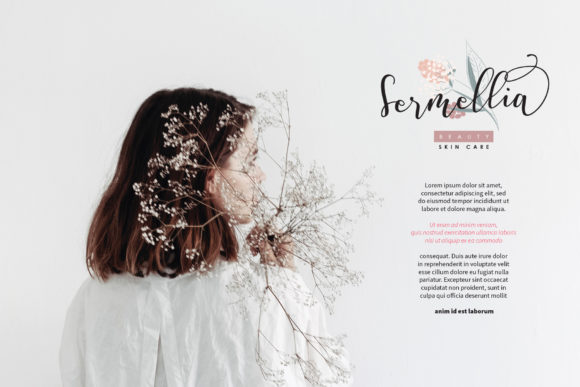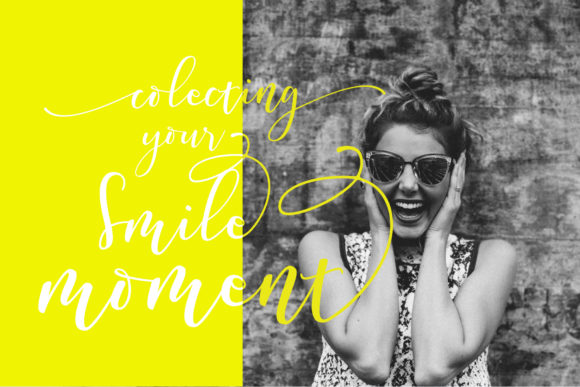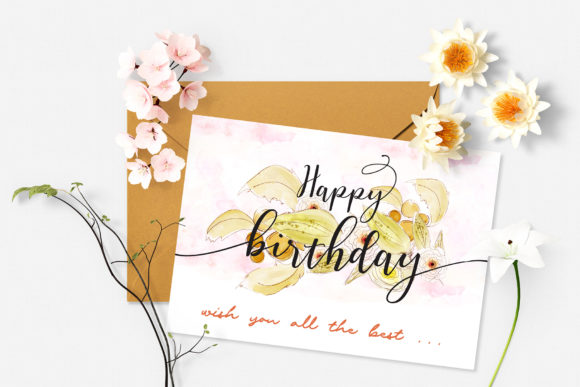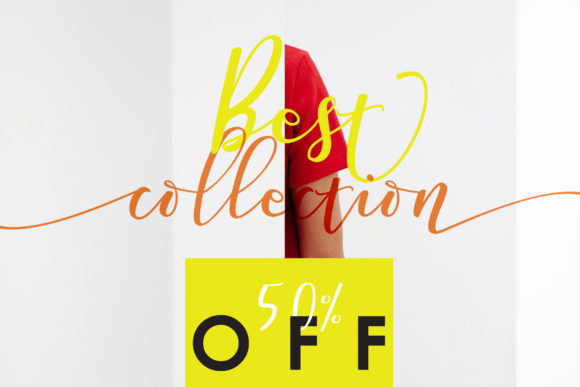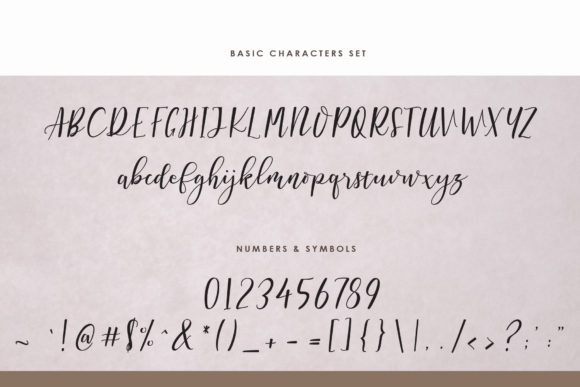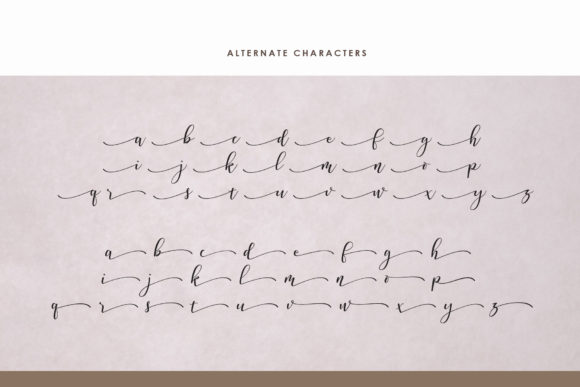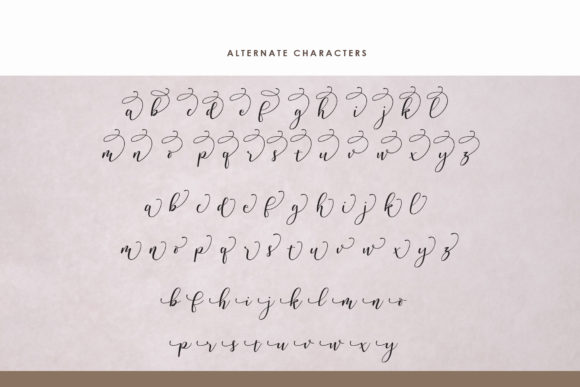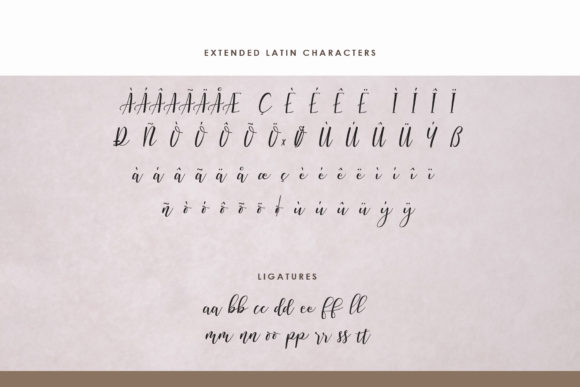
HomeScript FontsSermellia Font Script Fonts Sermellia Font FacebookXPinterestWhatsApp Sermellia Font Poster 2 Sermellia Font Poster 3 Sermellia Font Poster 4 Sermellia Font Poster 5 Sermellia Font Poster 6 Sermellia Font Poster 7 Sermellia Font Poster 8 Sermellia Font Poster 9 About Sermellia Font Sermellia is a wonderful and charming handwritten font with a unique feel. Get inspired by its authentic vibe! DOWNLOAD ON CREATIVE FABRICAThis font is sold and delivered by Creative Fabrica. Font Canyon may earn a commission if you buy through this link. People also explored Algoma Font Poppies Font Amstrong Font Adolf William Font PRINCESS BERLIANTY Alain Font Monthella Font Standups Font Bogatess Font 300 0 TagsSermellia Font Previous articleBollgota FontNext articleThe Fantastic Font LEAVE A REPLY Cancel reply Comment: Please enter your comment! Name:* Please enter your name here Email:* You have entered an incorrect email address! Please enter your email address here Website: Save my name, email, and website in this browser for the next time I comment. Personal Use Free Good Luck Personal Use Free Read more about this font Budmo Personal Use Free Read more about this font Romantic February Personal Use Free Read more about this font Gunplay Personal Use Free Read more about this font BLOG Best Fonts for T-Shirt Design – Top 2025 Picks In 2025, t-shirt design has become more than just fashion—it's a form of self-expression. Whether you're... Top 10 Handwritten Fonts That Elevate Your Designs 5 Fonts That Will Dominate Design Trends in 2026 The 10 Best Handwriting Fonts to Add Personality to Your Designs